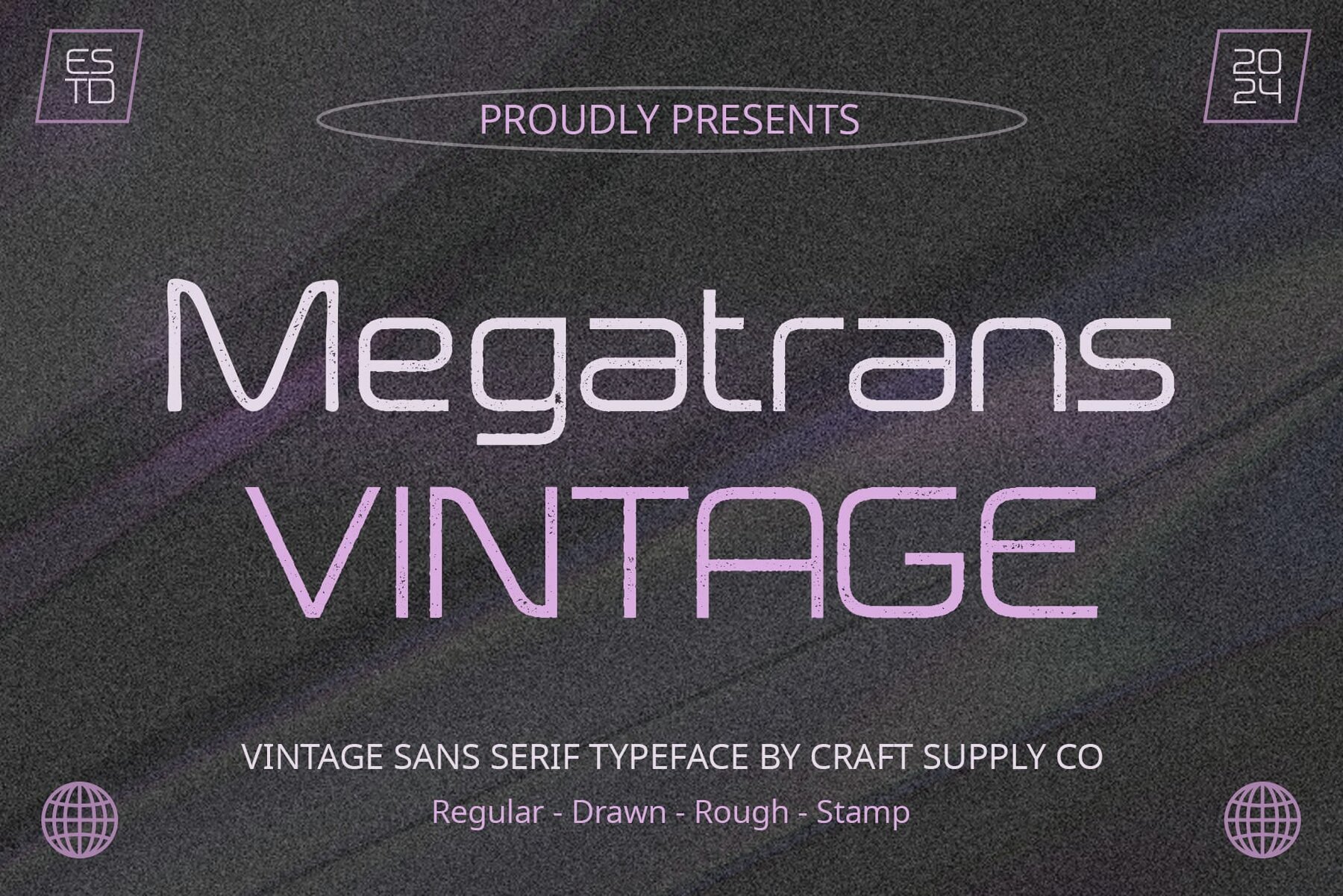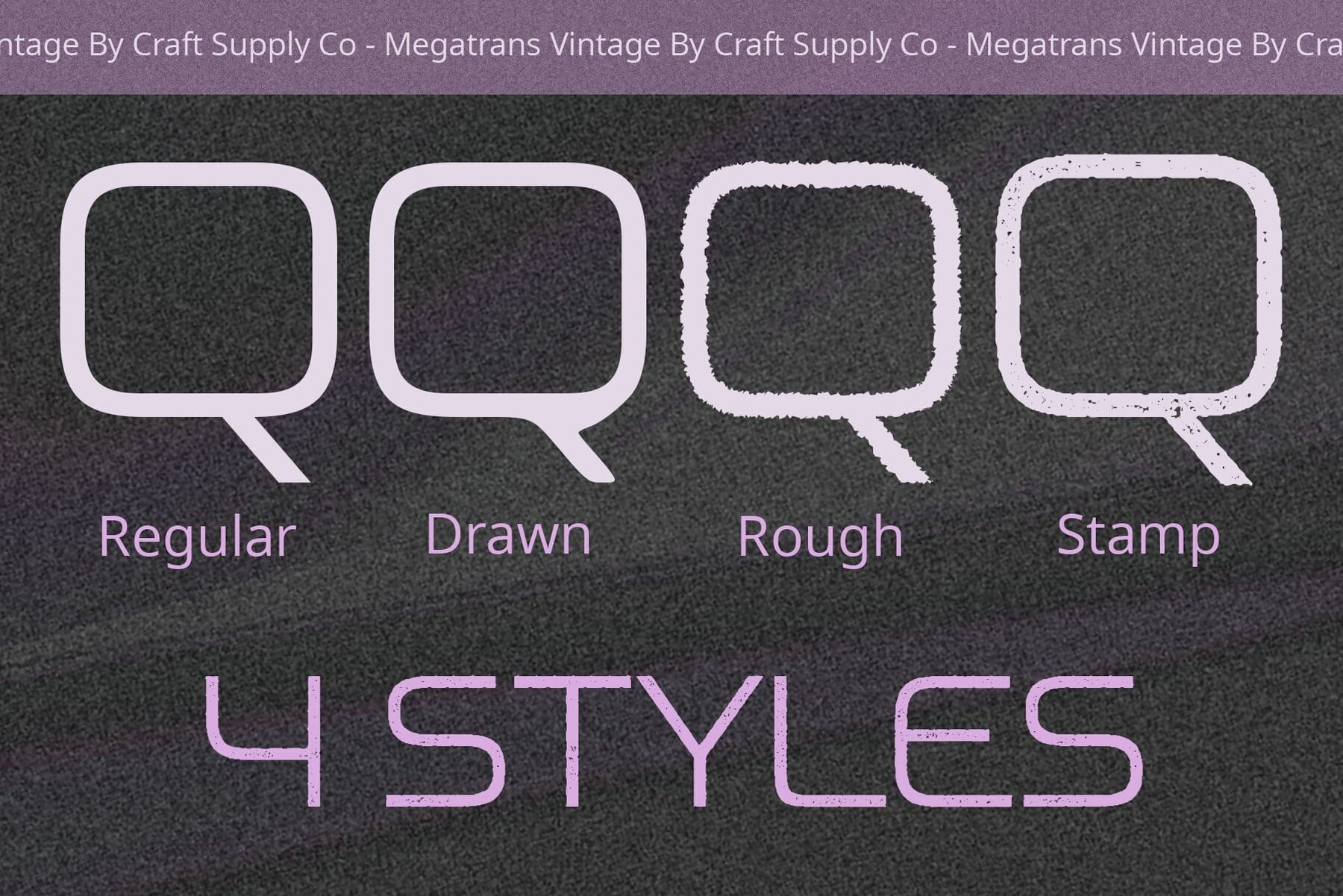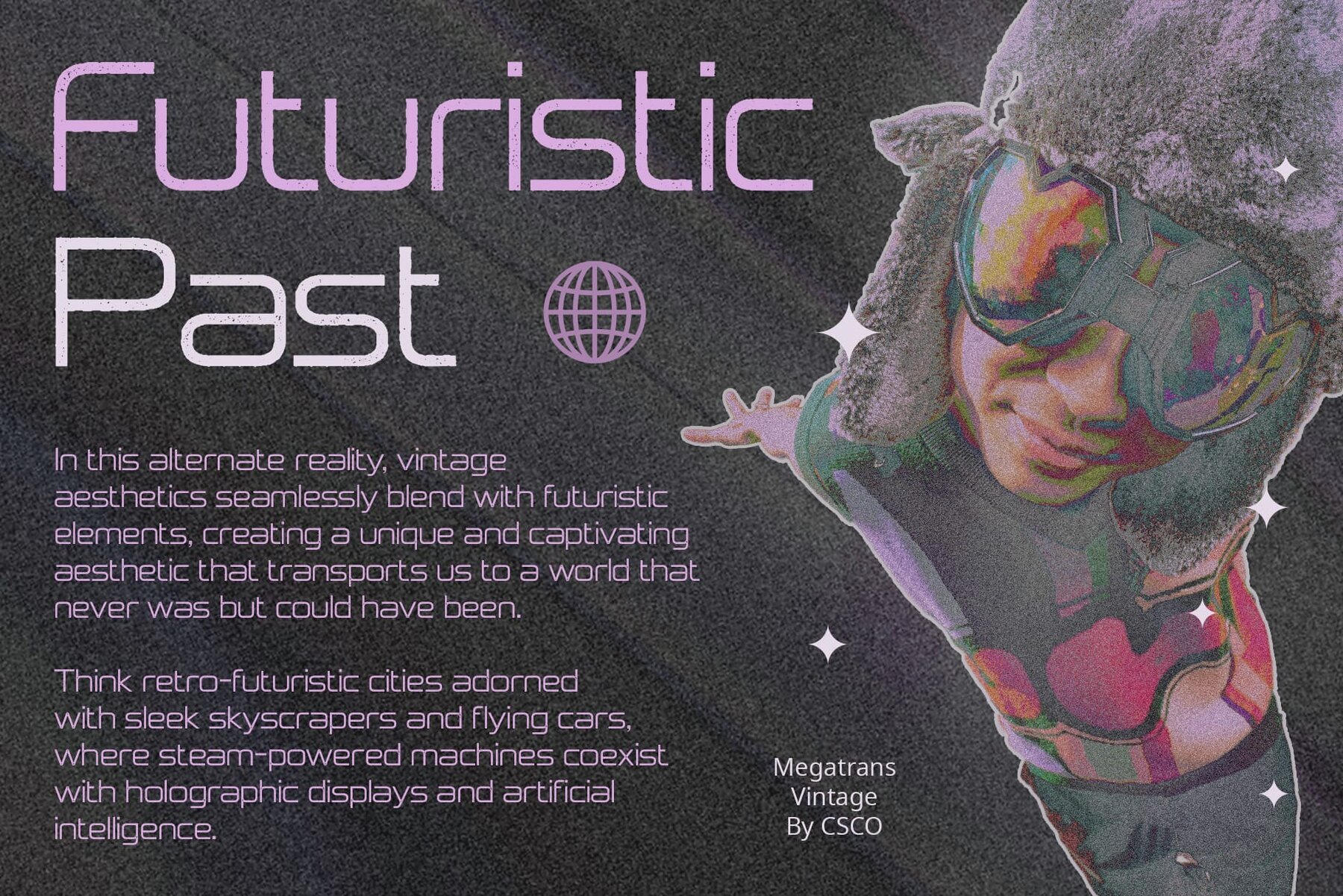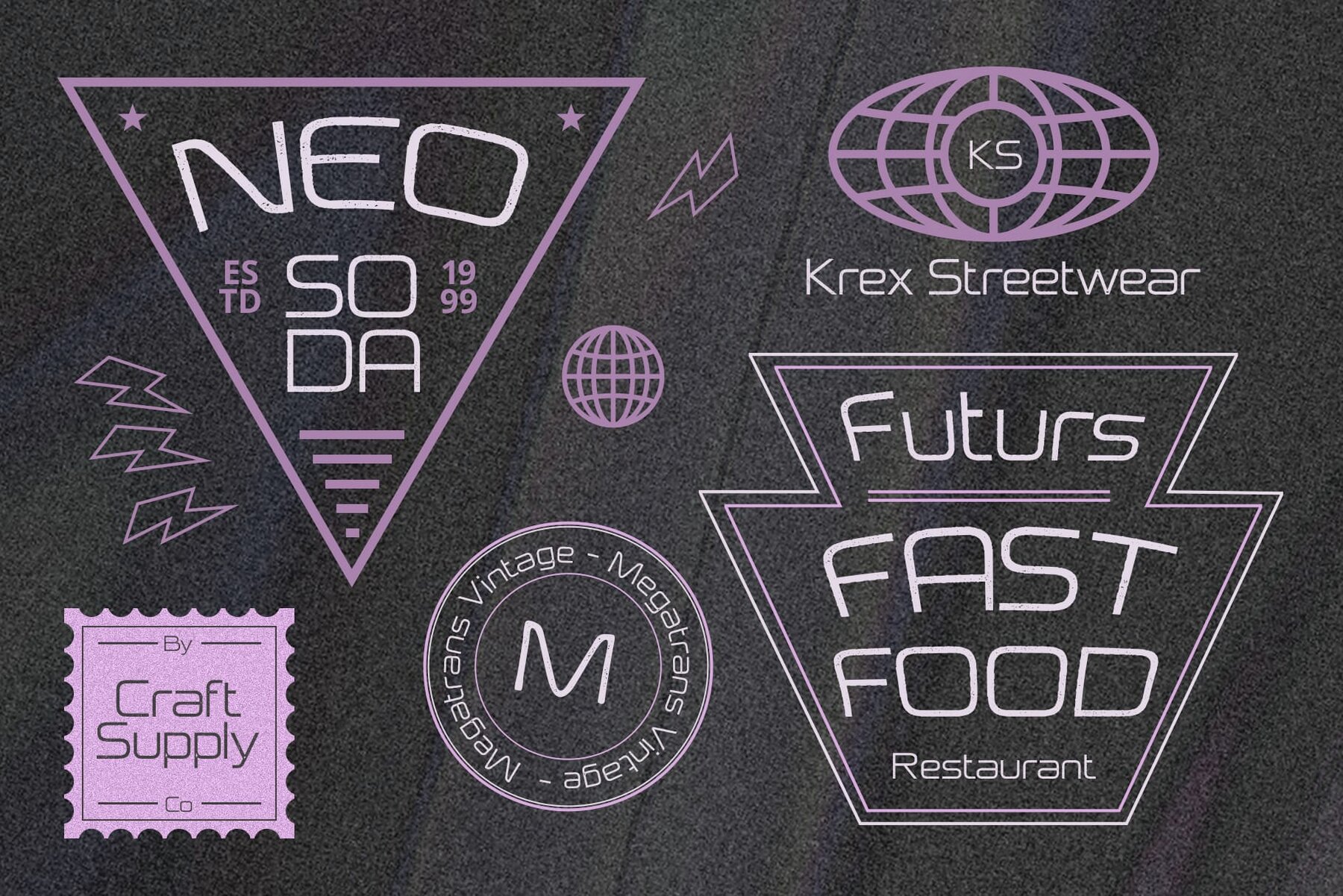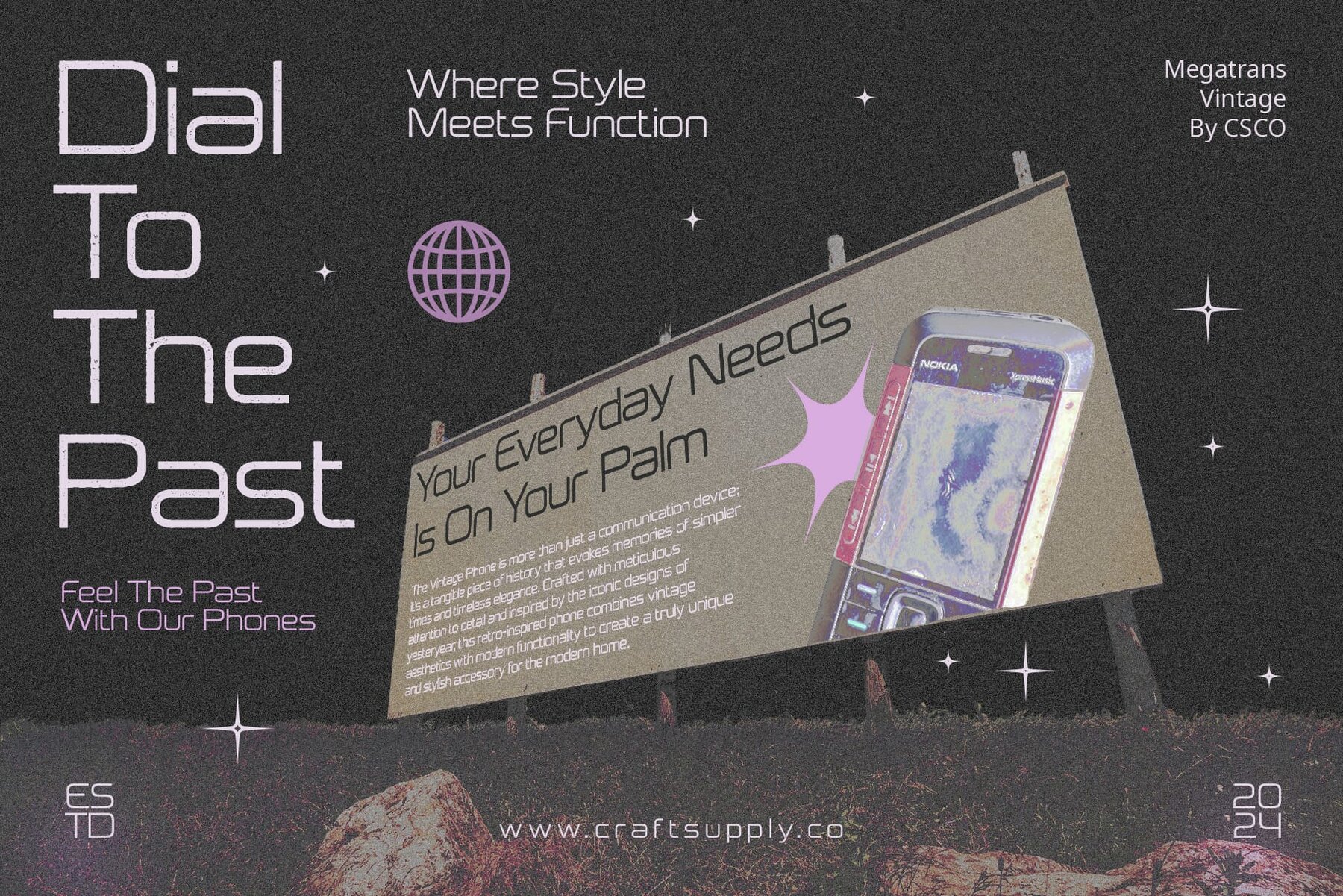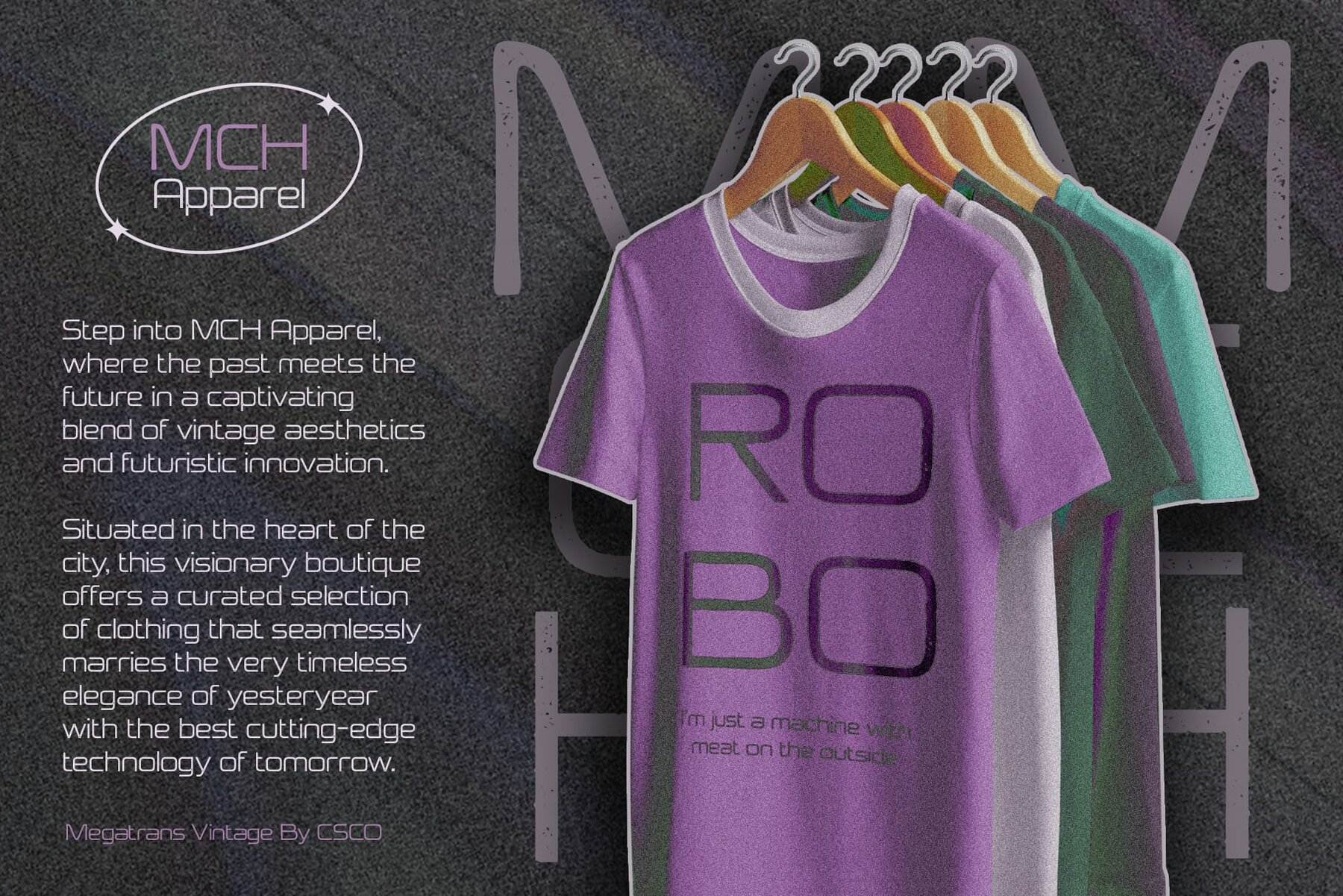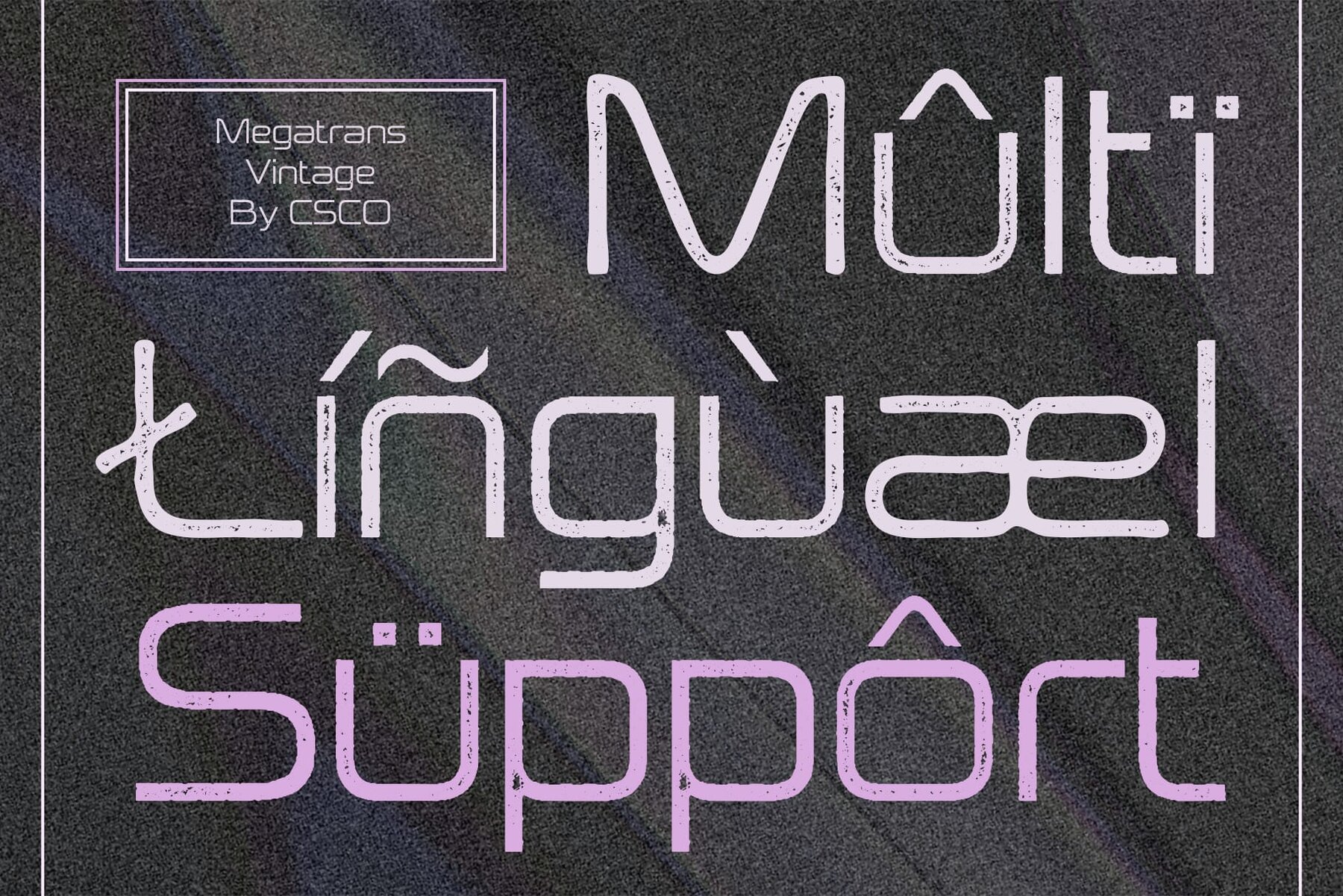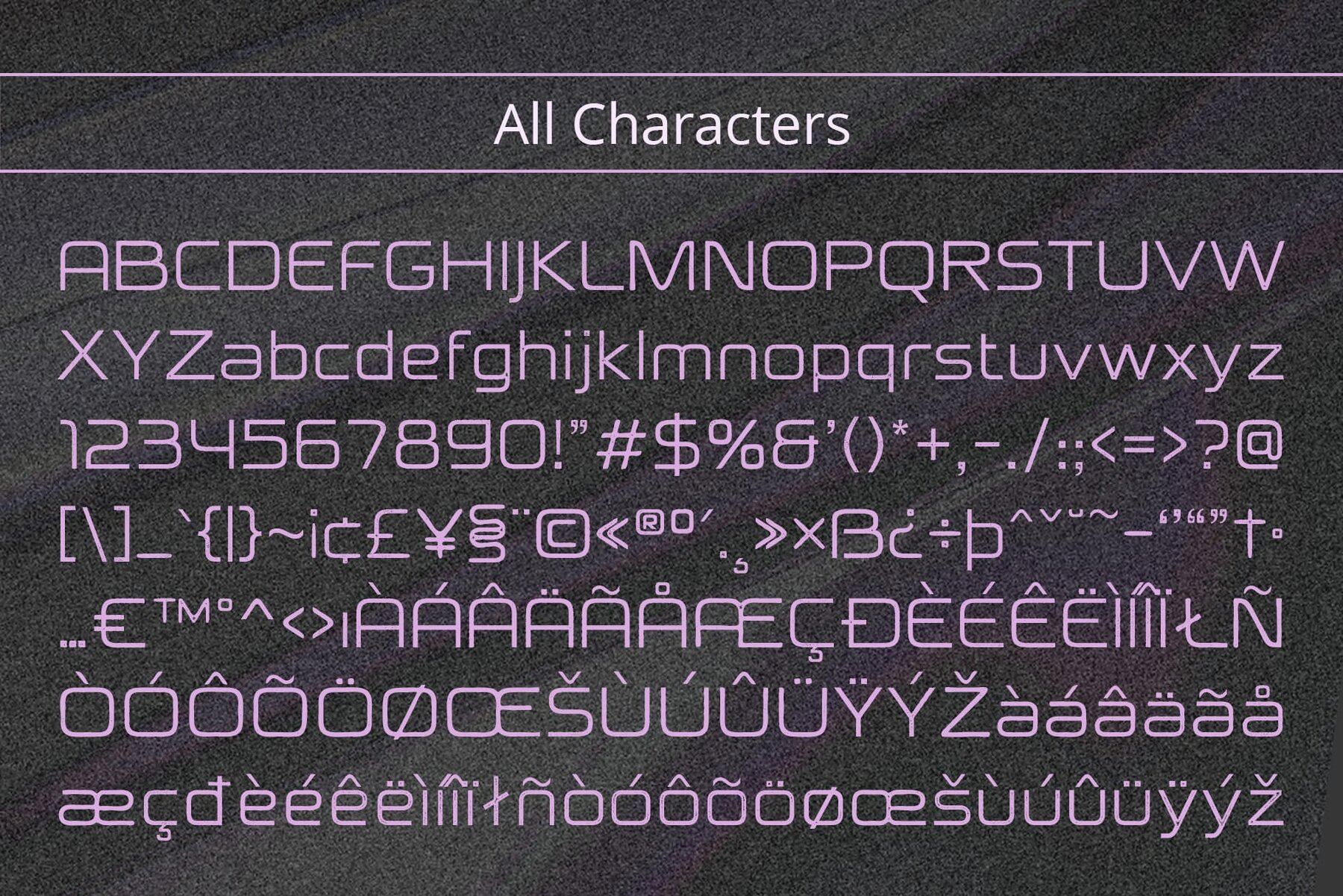
Megatrans Vintage Font
Megatrans Vintage is a distinct typeface that merges modern simplicity with vintage charm. Its sleek sans serif form and unique design elements make it a versatile choice for various design needs. Megatrans Vintage features a sleek sans serif design, characterized by low-contrast strokes and thin, refined lines. Its minimalist appearance exudes modernity and simplicity. Infused with vintage charm, this font includes rough stamp drawn effects that lend it a weathered, aged appearance. These unique textures evoke a sense of nostalgia and authenticity. Tailored for retro-inspired projects, Megatrans Vintage is the perfect choice for bringing a touch of yesteryear to modern designs. Its vintage aesthetic adds character and depth to various design applications. Whether used in print or digital media, Megatrans Vintage adapts seamlessly to diverse design contexts. From posters and signage to digital banners and websites, its timeless appeal captivates audiences across mediums. This font combines the sleekness of a sans serif typeface with the vintage charm of rough stamp drawn effects. With its low-contrast strokes and minimalist design, it offers versatility and authenticity, making it an ideal choice for designers seeking to infuse their projects with retro elegance. No specialized software is needed to utilize this typeface. For any inquiries or assistance, feel free to get in touch. We appreciate your support in making your creative projects shine! Best regards, Craft Supply Co.Megatrans Vintage: Retro Display Typeface from Craft Supply Co.
Sleek Sans Serif Form
Vintage Vibes with Rough Stamp Drawn Effects
Ideal for Retro Designs
Versatile Usage Across Mediums
Retro Elegance for Modern Designs